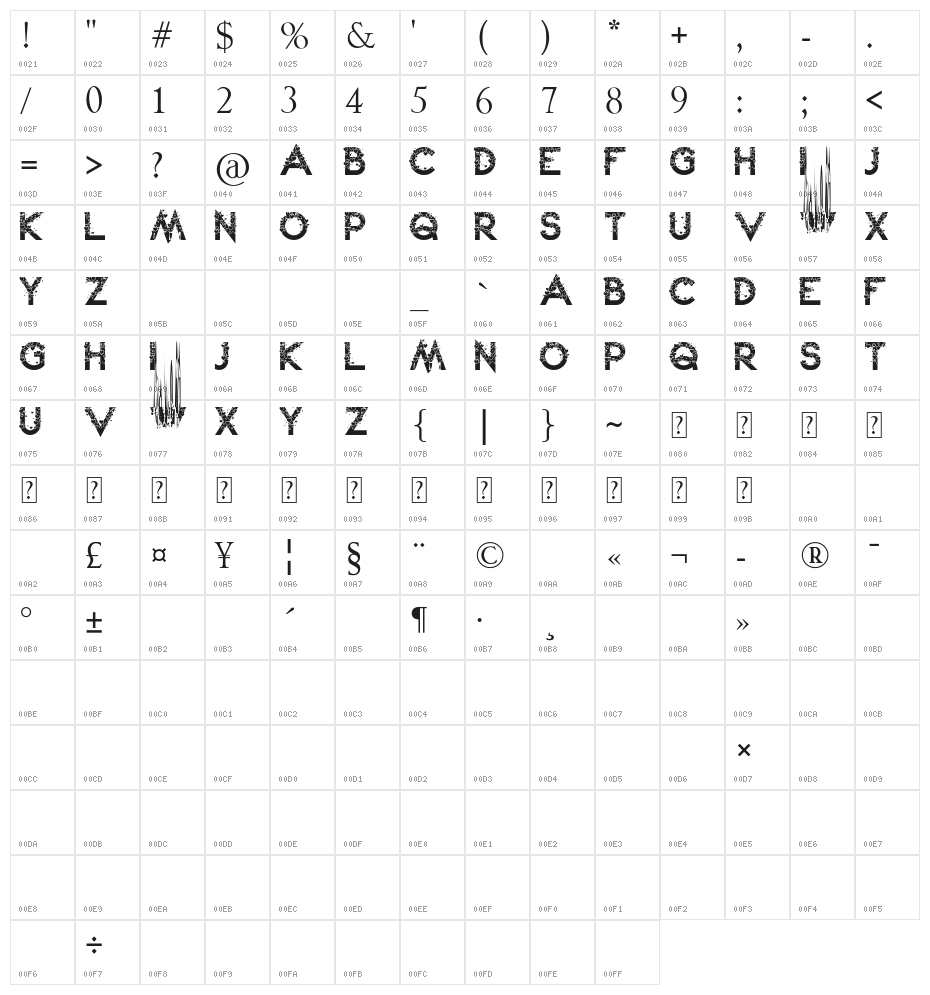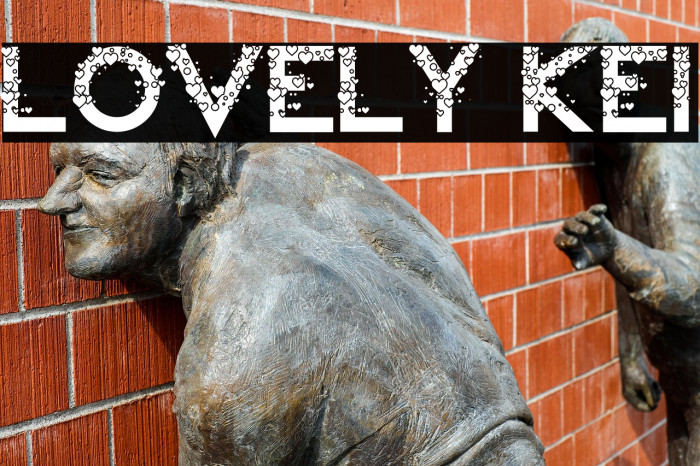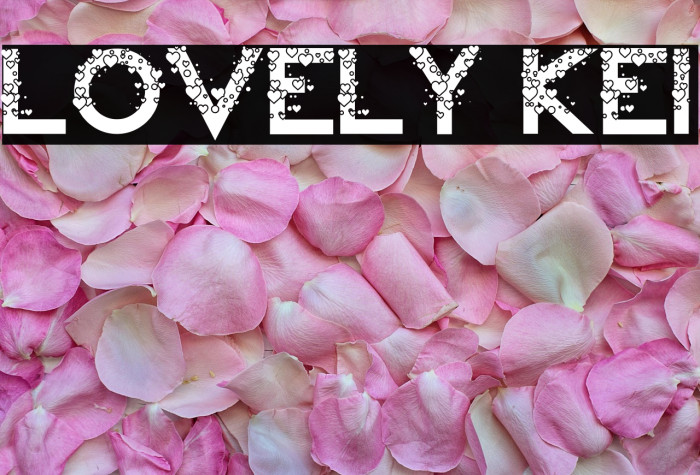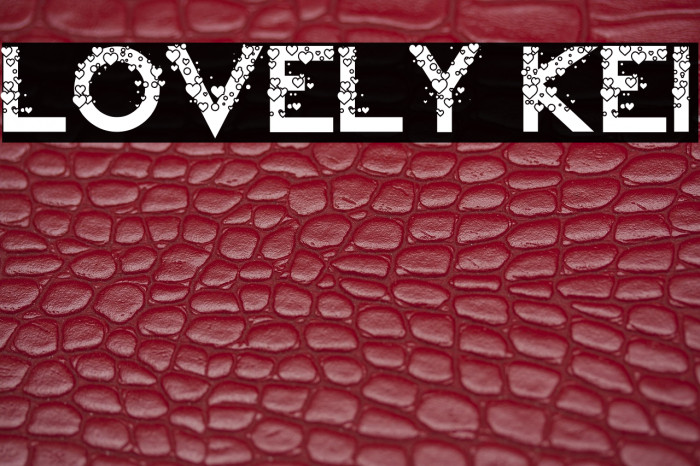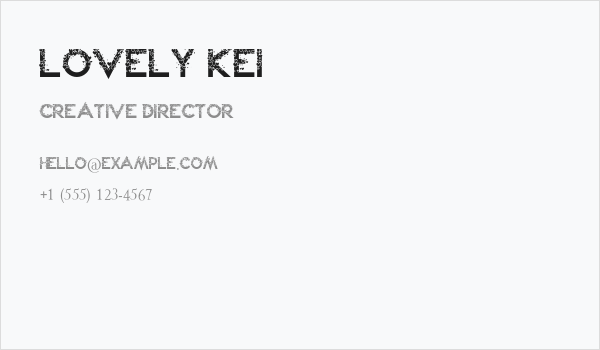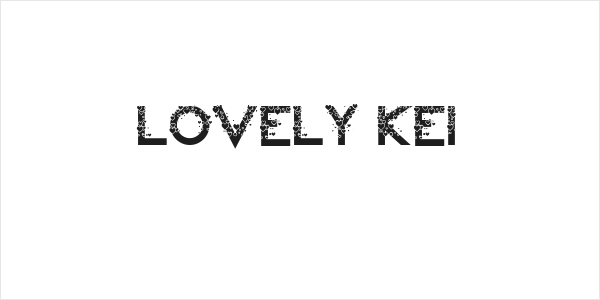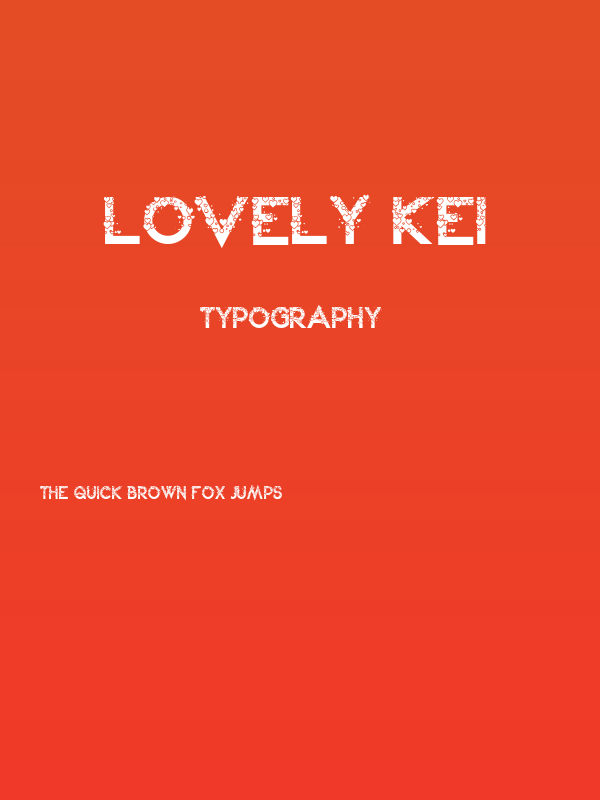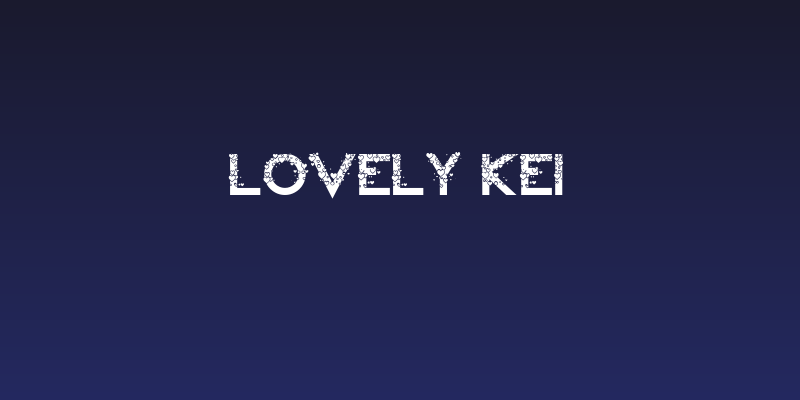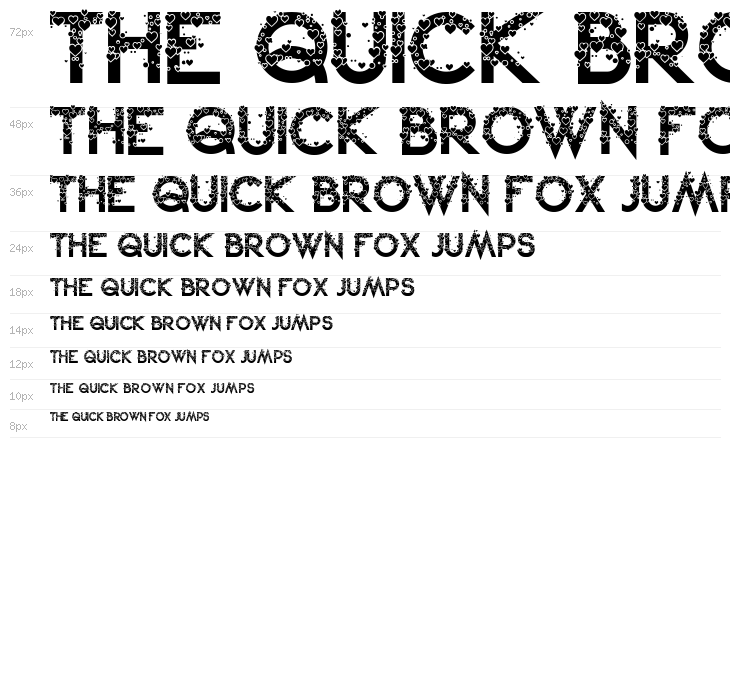
Lovely Kei Font
Lovely Kei Description
This font features a unique decorative style with a playful, dotted pattern filling the characters, giving it a whimsical and artistic appearance. The uppercase letters are bold and striking, while the lowercase letters maintain a consistent style, ensuring readability. The numerals are elegantly designed, complementing the overall aesthetic. The special characters are crafted with the same attention to detail, making them suitable for creative projects. The font's distinct design makes it ideal for eye-catching headlines, posters, and artistic branding projects.
| Proposed Projects | Ideal for artistic branding, eye-catching headlines, posters, and creative invitations. |